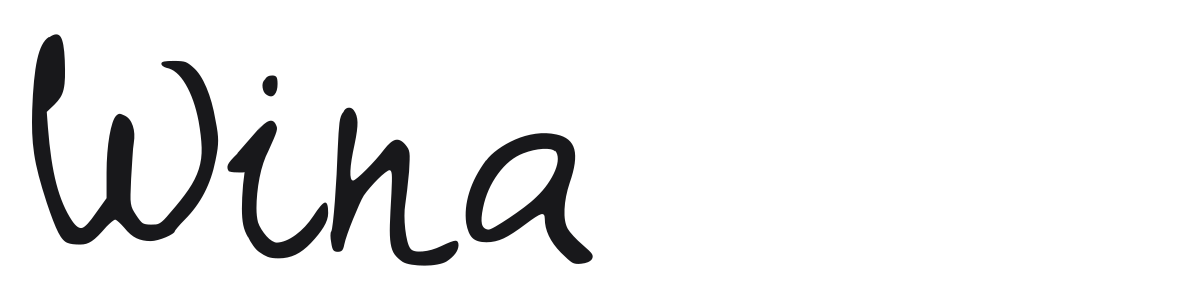
Wina
Wina is a semi-cursive handwritten script digitized directly from real handwriting, preserving natural irregularity in x-height and curve. The slightly unpredictable rhythm and looping strokes give it the kind of warmth that's hard to fake. Kerning carefully to get the most out of its casual, flowing character.